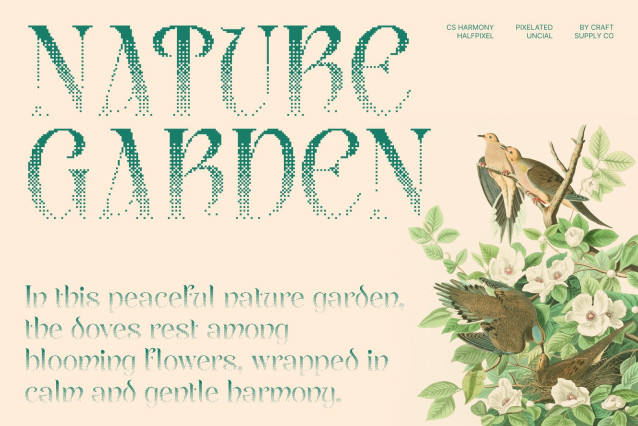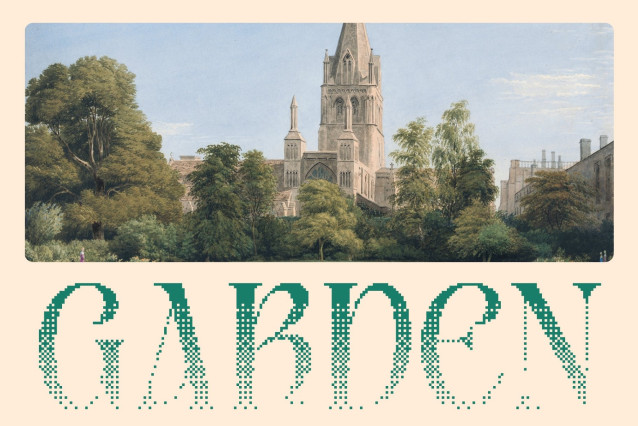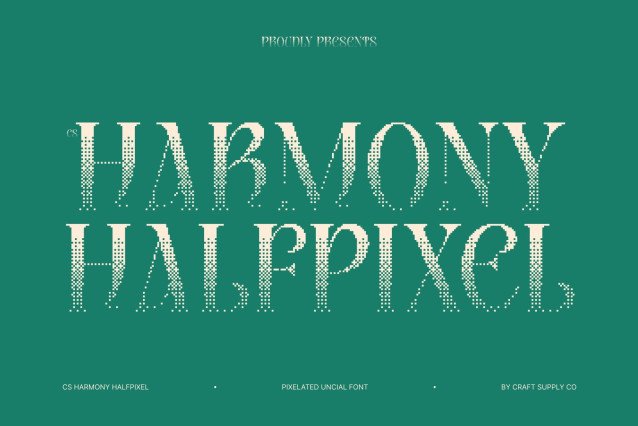
CS Harmony Halfpixel – Modern Serif Display Font: Where Uncial Elegance Meets Digital Refinement
Uncial-Inspired Forms with Smooth Digital Aesthetics
This is a modern serif display font that embodies the elegance and visual charm of classic uncial letterforms. Its rounded serif shapes and graceful curves create a timeless and artistic appearance, while the halfpixel effect introduces a refined digital texture that feels smooth and futuristic. The result is a typeface that beautifully balances heritage-inspired elegance with retro-tech aesthetics.
Halfpixel Style with Soft Futuristic Character
Unlike traditional rigid pixel fonts, the halfpixel effect uses subtle anti-aliasing techniques to soften the edges of each letterform. This creates a gentle blurring effect that enhances readability while preserving a nostalgic digital atmosphere. The softened geometry gives the font a sleek and sophisticated personality perfect for contemporary creative projects.